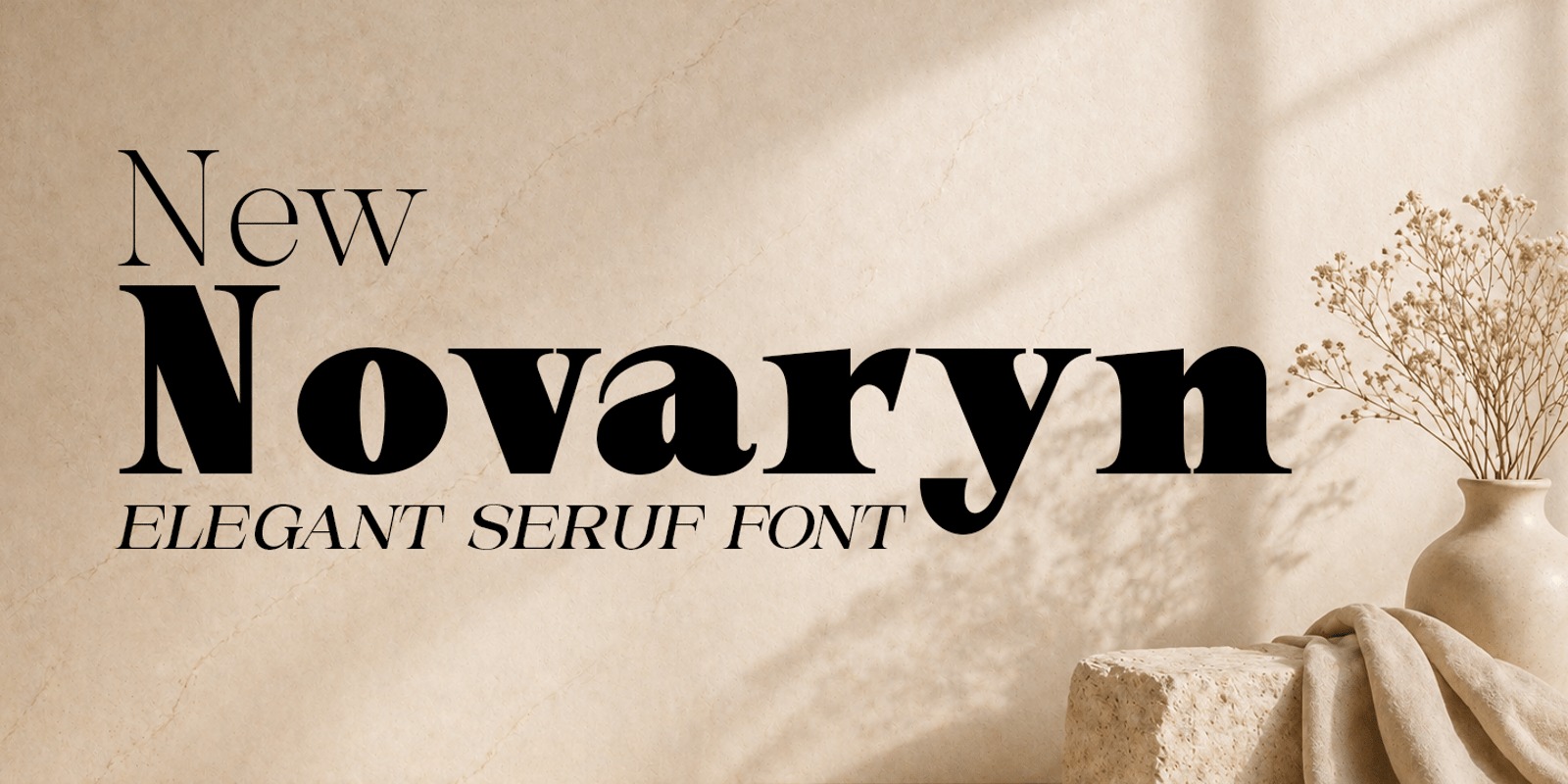
New Novaryn Font Family
New Novaryn Font Family is a premium-quality font developed to enhance your work with a polished, modern, and visually elevated look. New Novaryn is a refined and versatile serif typeface designed to balance classical elegance with modern precision. Built for high-end editorial, branding, and cinematic visual identity, this typeface delivers a strong yet graceful presence across a wide range of applications. Its carefully crafted letterforms feature sharp serifs, balanced contrast, and a confident rhythm that enhances readability while maintaining a distinctive personality.
With a comprehensive system of proportions, New Novaryn adapts seamlessly to different design needs. From tightly spaced layouts to expansive compositions, it offers exceptional flexibility without losing its visual integrity. Whether used in print or digital media, it provides a timeless aesthetic with a contemporary edge.
Family Structure:
New Novaryn includes a complete superfamily of 90 styles, covering both upright (roman) and italic versions. Each style is meticulously designed to ensure consistency, harmony, and smooth transitions across weights and widths.